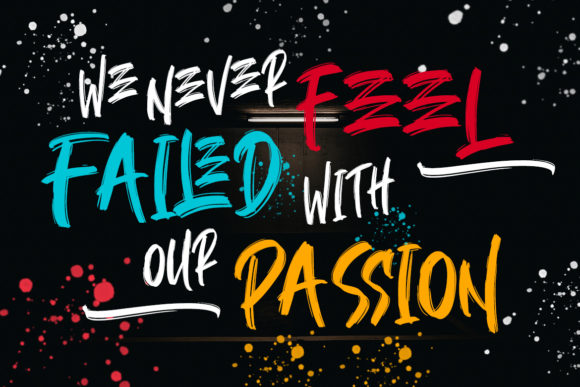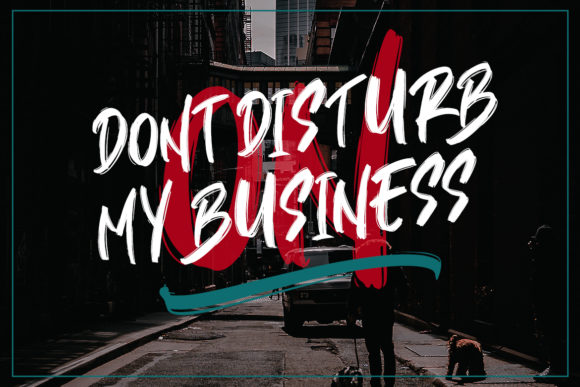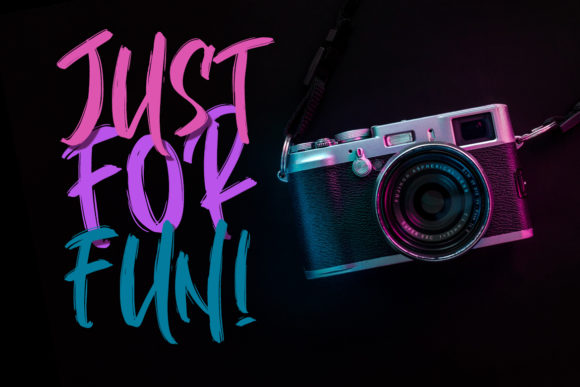
The Ultimate Urban Font: Unleashing the Power of Blackball
I’ll never forget the design project that led me to discover Blackball Font. I was working on a branding campaign for a trendy new coffee shop, and I needed a font that would capture the essence of the city’s vibrant streets. As I scrolled through font after font, nothing seemed quite right – until I stumbled upon Blackball. Its bold, urban vibe instantly resonated with my vision, and I knew I had found the perfect fit.
So, what makes Blackball Font so special? Here are a few things that I absolutely love:
- ✨ Natural, hand-crafted feel: Blackball’s dry brush style gives it a unique, organic look that’s perfect for adding a touch of personality to your designs.
- ✅ Bold and eye-catching: This font is not for the faint of heart – it’s loud, it’s proud, and it’s sure to grab attention.
- 💡 Versatile and adaptable: Whether you’re designing a logo, a poster, or a social media graphic, Blackball Font can handle it all.
Of course, no font is perfect, and Blackball has a few quirks to keep in mind:
- 🤔 Legibility at small sizes: While Blackball looks amazing at larger sizes, it can be a bit tricky to read when scaled down. Be sure to test it carefully before committing to a specific size.
- ⚠️ Limited use in formal contexts: Due to its bold, urban vibe, Blackball Font may not be the best choice for more formal or traditional designs.
- Experiment with OpenType features like glyphs and stylistic alternates to add some extra flair to your design.
Exploring Alternatives: 4 Fonts Similar to Blackball
While Blackball Font is undoubtedly unique, there are other fonts out there that share similar characteristics. Here are four alternatives you might want to consider:
- Bebas Neue: This modern, bold font has a similar urban feel to Blackball, but with a slightly more geometric approach.
- Great Vibes: With its elegant, hand-drawn style, Great Vibes offers a more refined take on the dry brush font aesthetic.
- Bramble: This font boasts a similar natural, organic feel to Blackball, but with a slightly more rustic, distressed look.
- Rough: As its name suggests, Rough is a gritty, urban font that’s perfect for adding a touch of edginess to your designs.
The Story Behind Blackball Font
While the true story behind Blackball Font might be shrouded in mystery, it’s easy to imagine a designer inspired by the vibrant streets of the city, seeking to capture the essence of urban grit and creativity. With Blackball, they aimed to create a font that’s both bold and beautiful – a true eye-catcher.
| Font Name | Blackball Font |
| Author | aldedesign |
| What type of designs is Blackball Font best suited for? | Blackball Font is perfect for bold, eye-catching designs like posters, logos, social media graphics, and more. |
| Is Blackball Font available in different weights or styles? | While Blackball Font might not have multiple weights or styles, its bold, urban vibe makes it a versatile choice for a wide range of designs. |
| Can I use Blackball Font in combination with other fonts? | Absolutely! Blackball Font pairs well with a variety of fonts, so feel free to experiment and find the perfect combination for your design. |